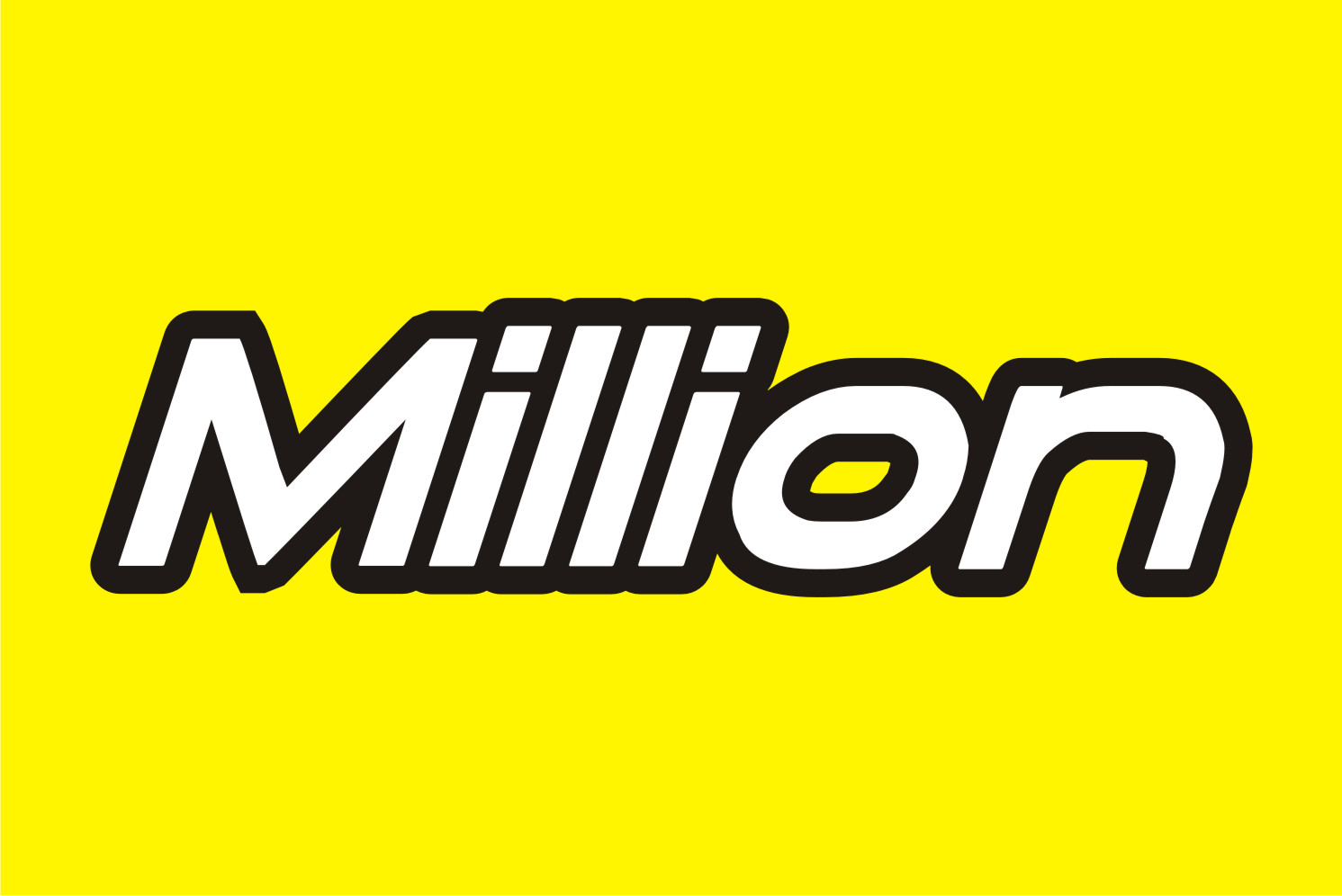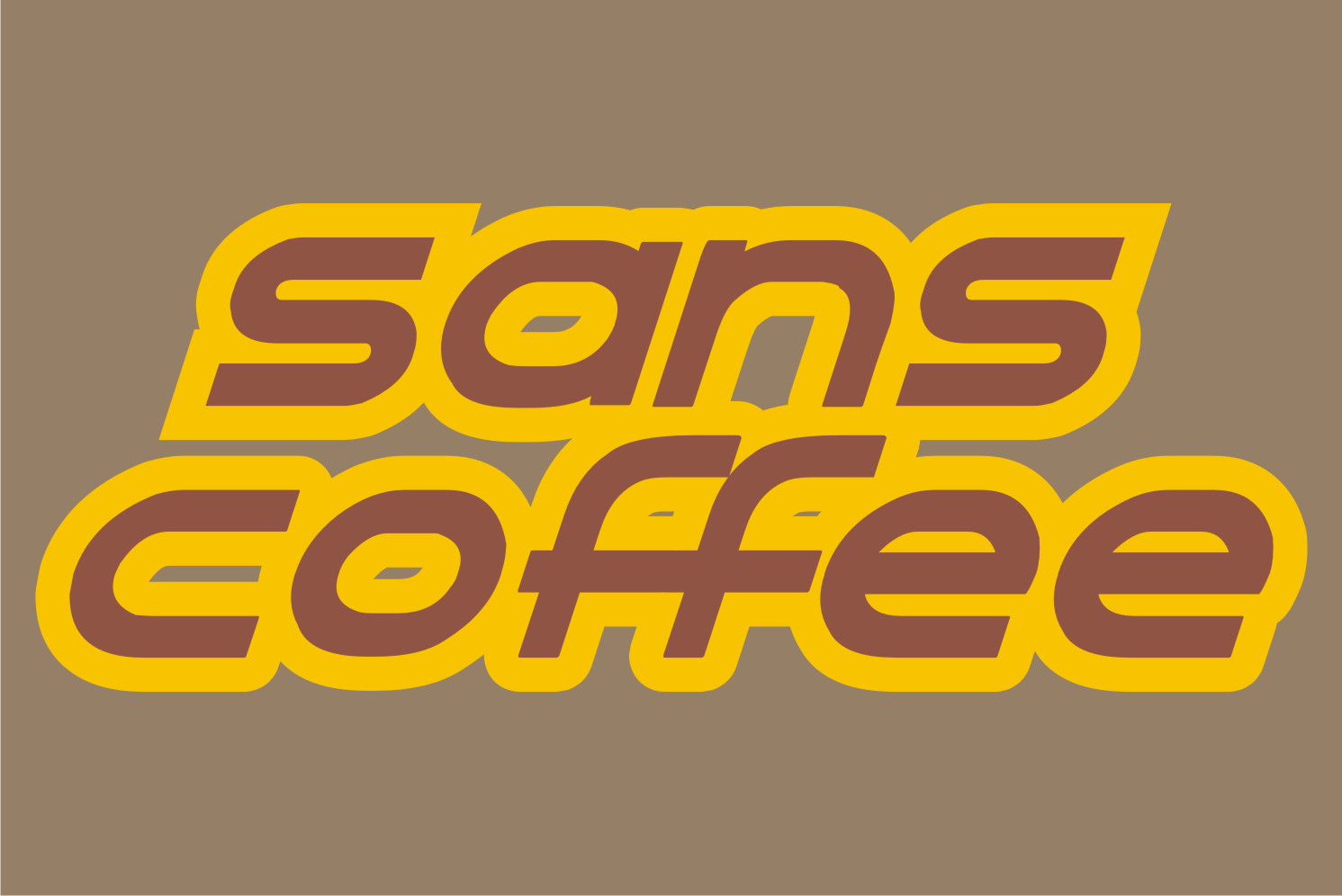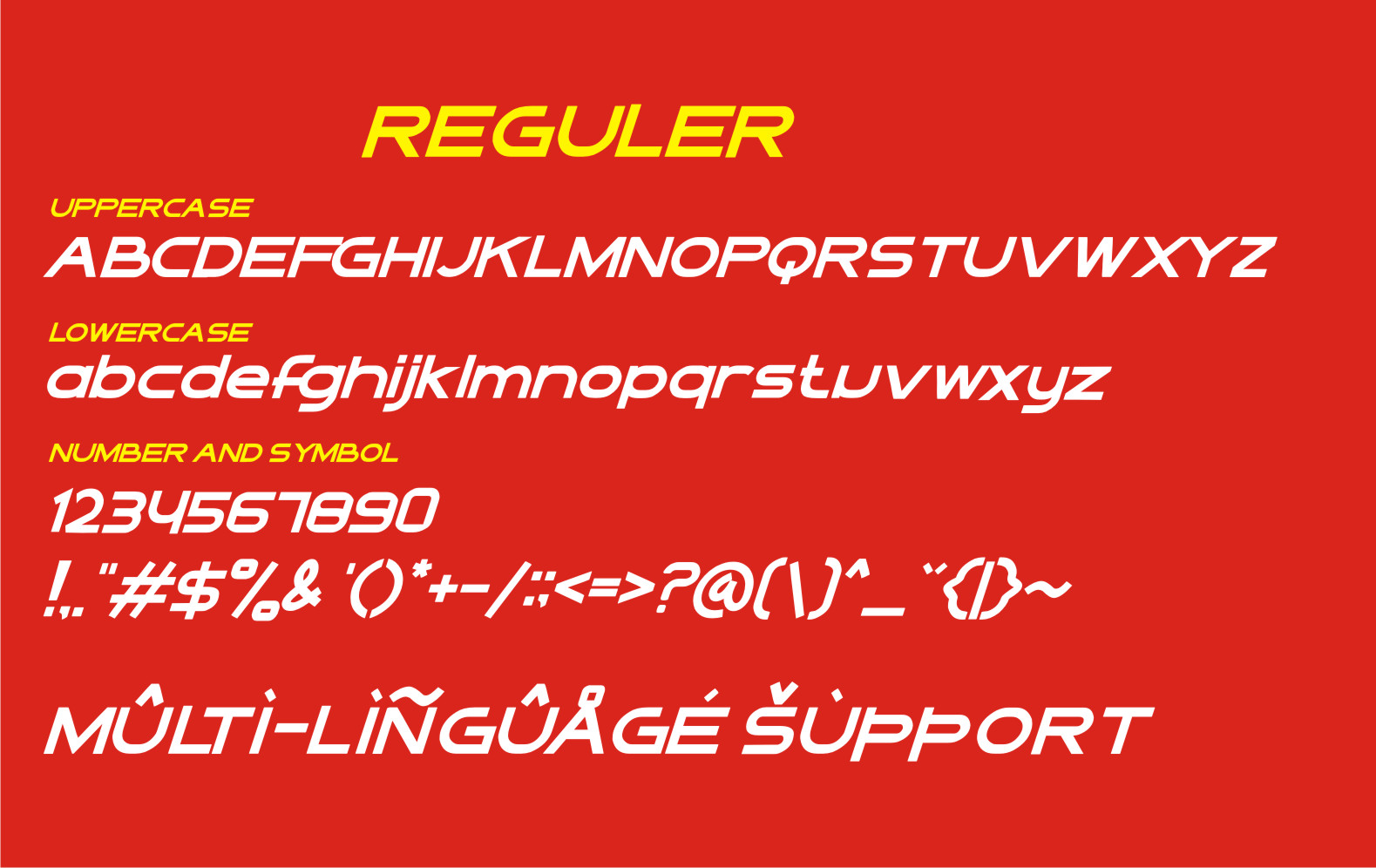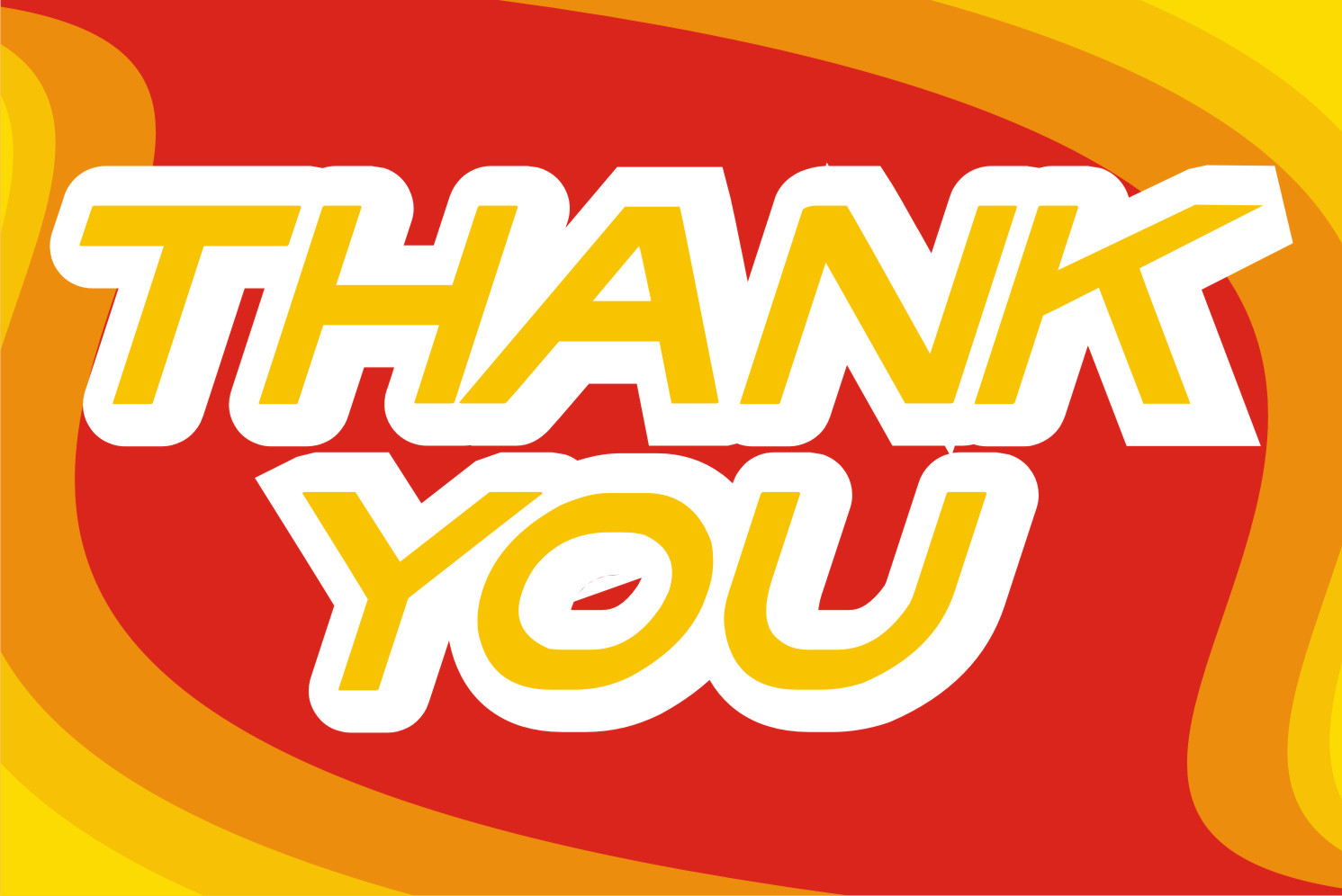
Rottor Font
Rottor Display Font
This is a cool and modern display font. This font is suitable for designs such as t-shirts, sportswear, logos, advertisements, clothing, and more.